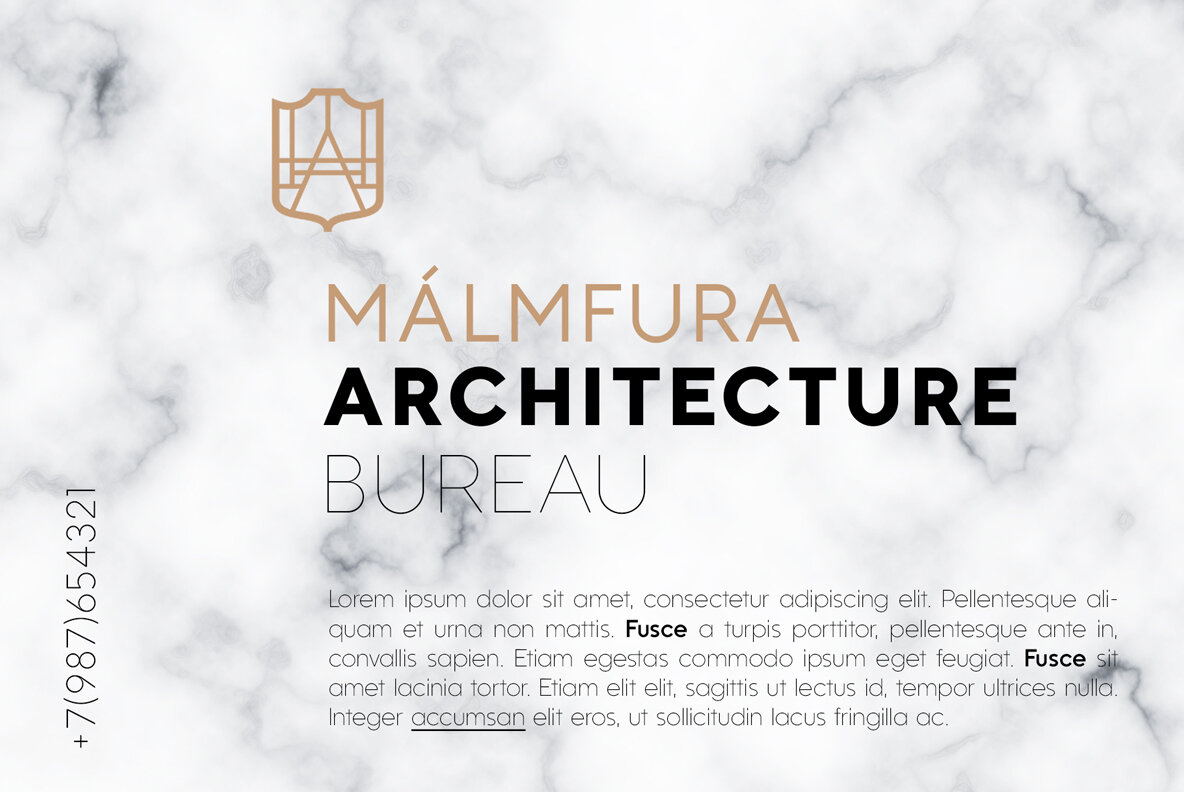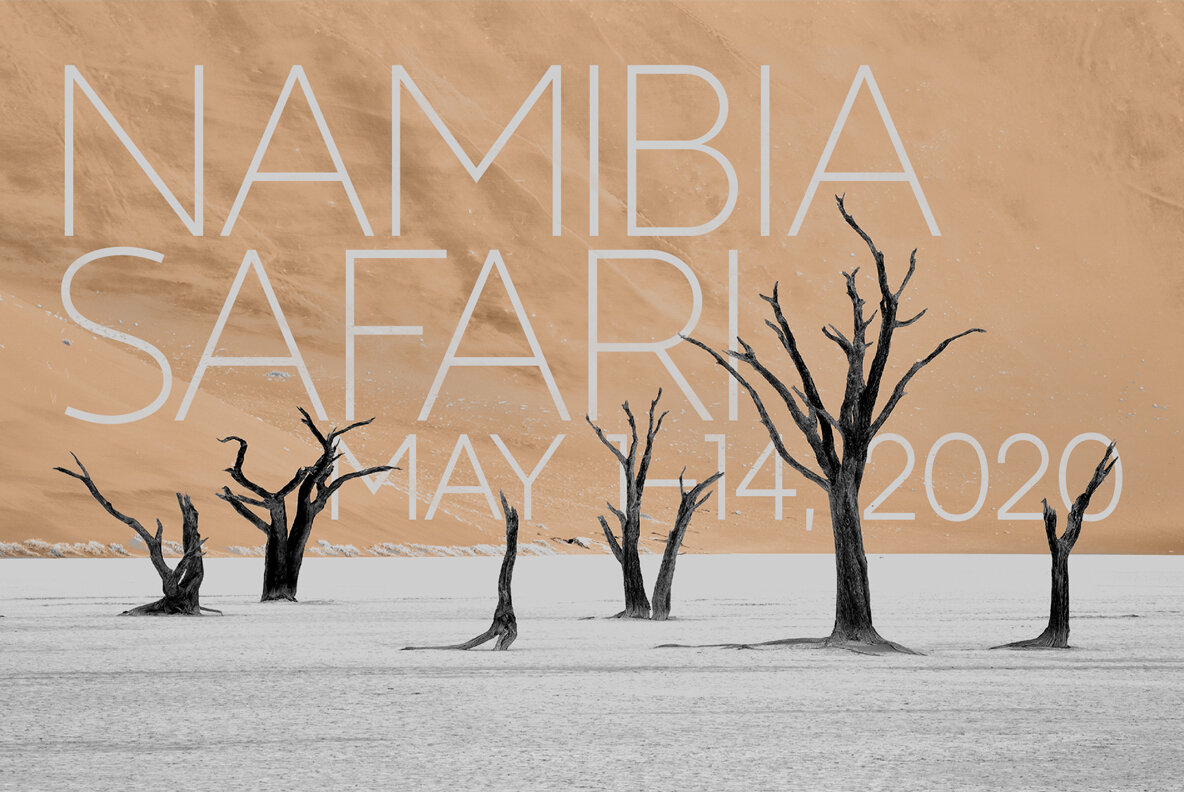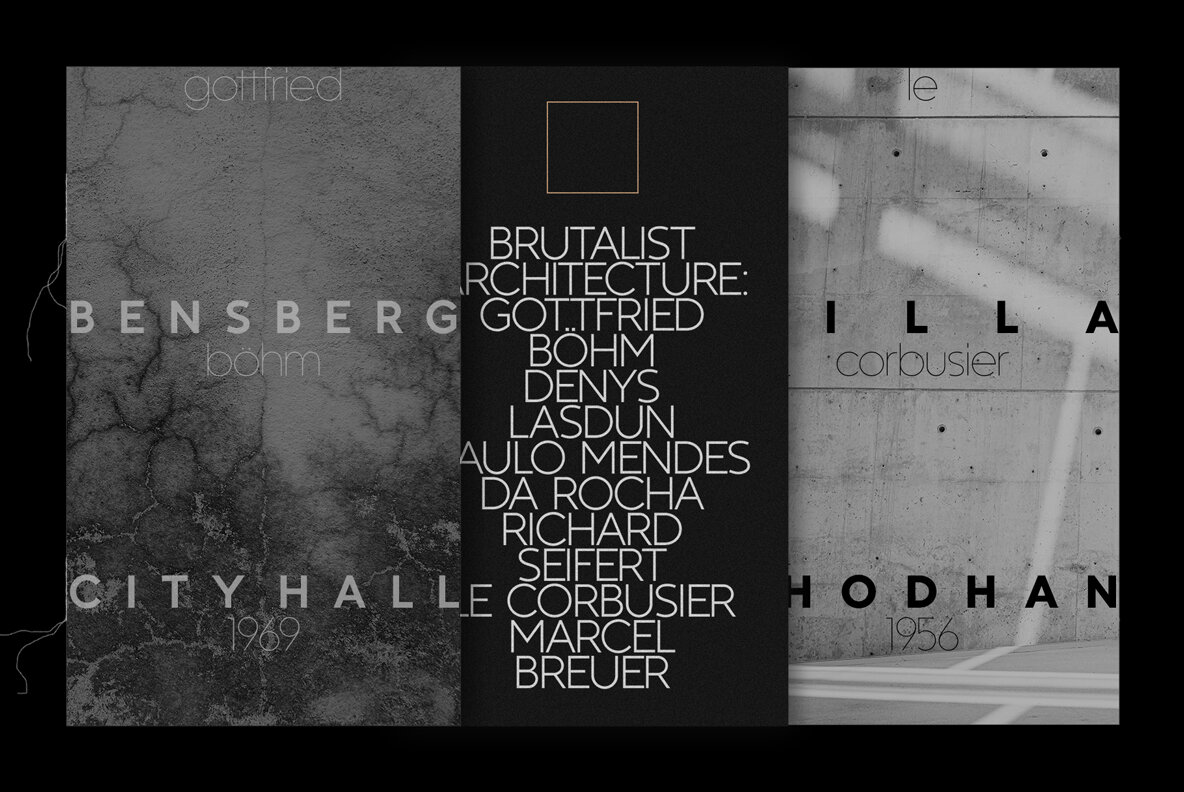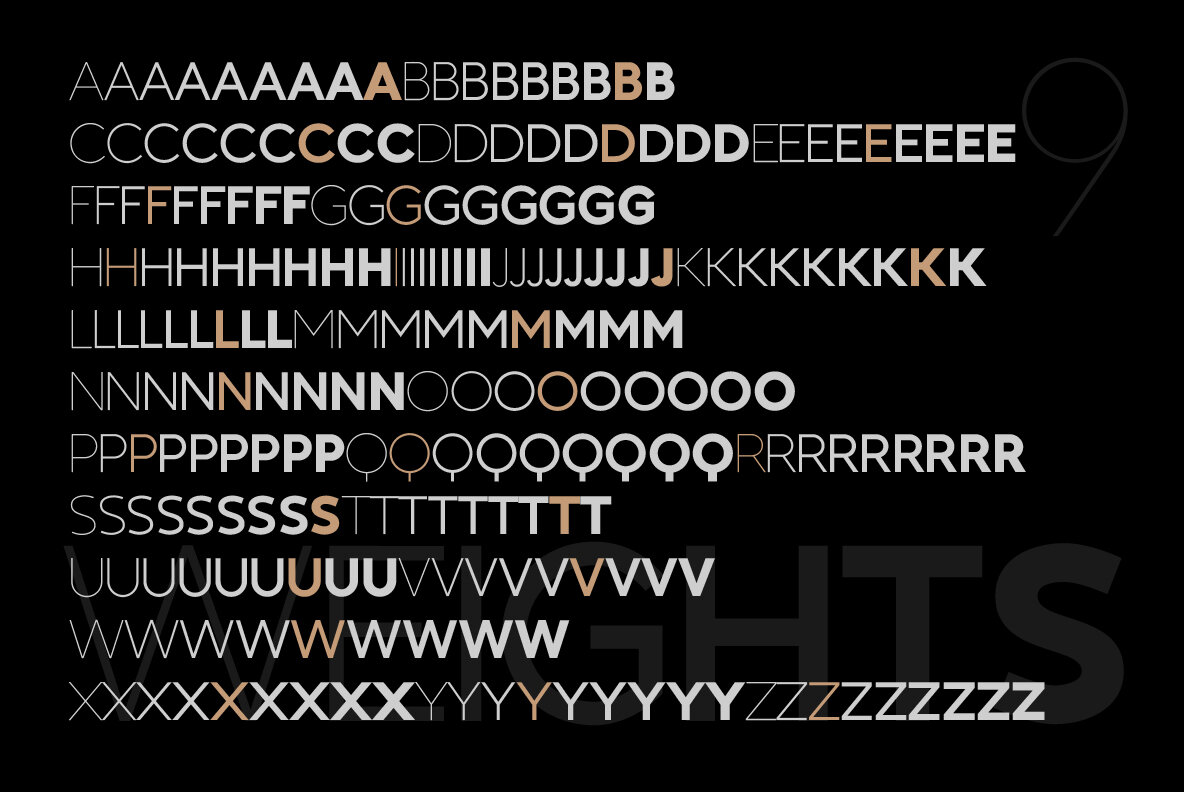
Kontora Font
Kontora is a basic and universal geometric grotesque design, that can be applied to various styles of layouts. It has minimum details, mostly modern proportions and letter forms, along with a touch of retro.